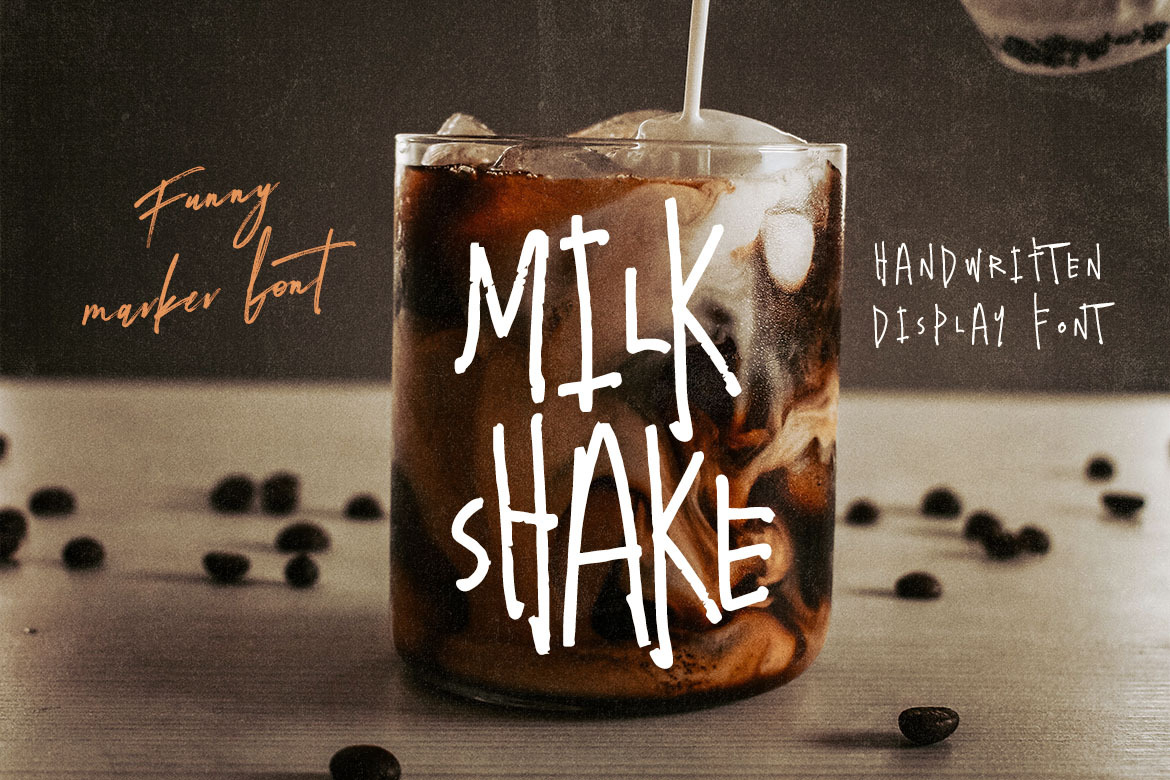
Milkshake - Crazy Handwritten Font
Marker, handwritten, crazy & grunge style sans display font for your new projects. Great for grunge or artistic projects!